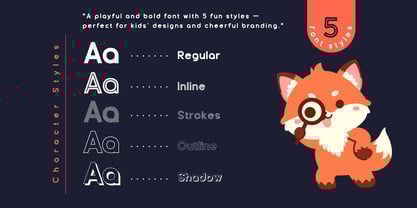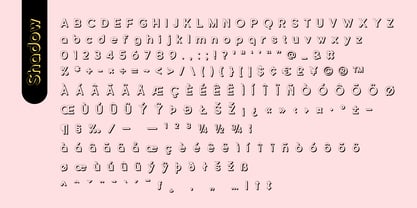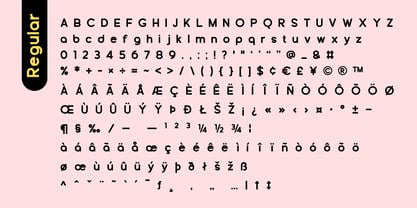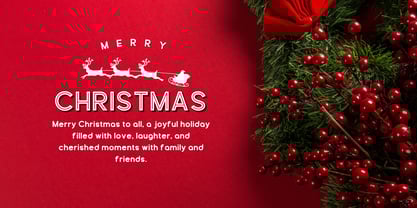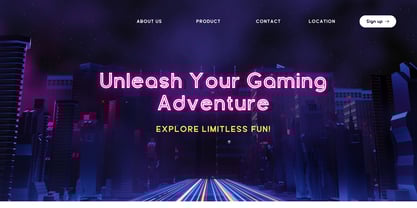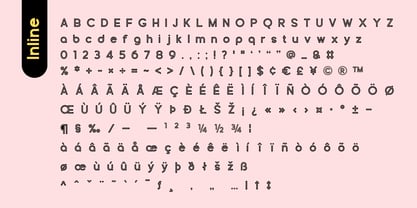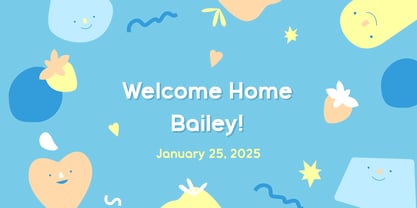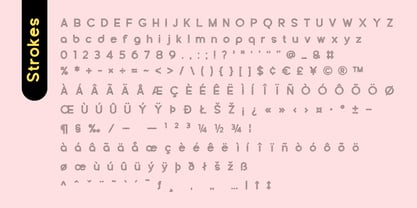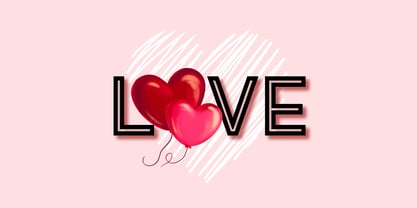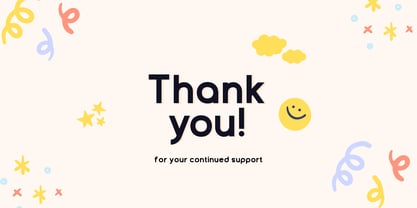
Fox Riding
by Fox7
The Fox Riding Font Family was designed by Rattana Rattanawan and published by Fox7. Fox Riding contains 5 styles and family package options.
Fox Riding is a font created in 5 styles a charming and inviting cool typeface. Perfect for use in publications, menus, logos, business cards, or even printed on t-shirts, these fonts exude uniqueness. They stand out in everything, regardless of the subject matter. A valuable addition to your font library.